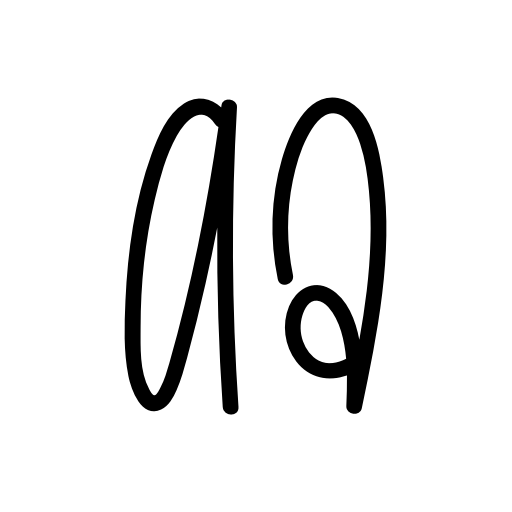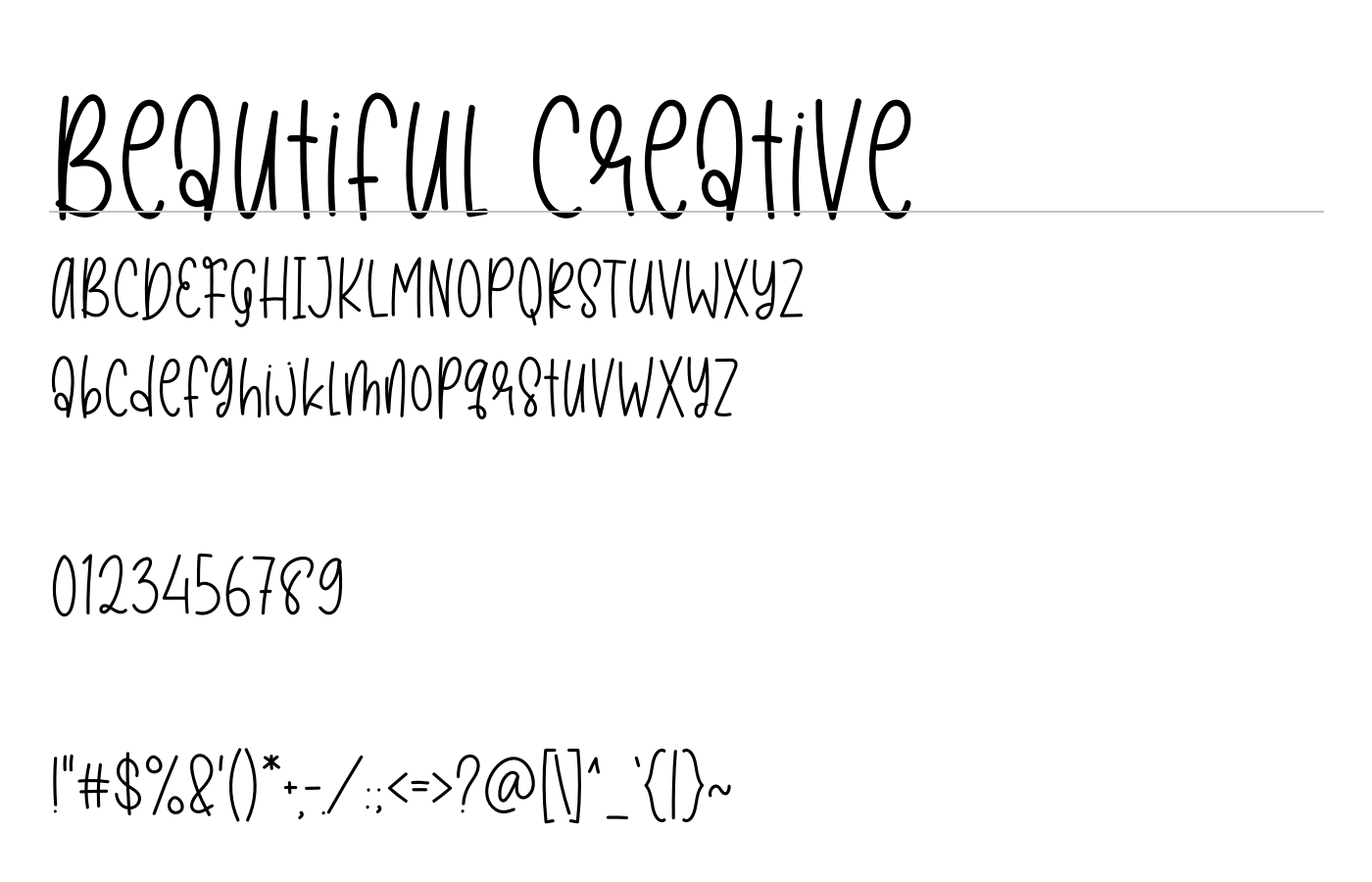
Beautiful Creative Font is a tall, narrow handwritten typeface with a playful and whimsical character. Its thin, delicate strokes and quirky letterforms give it a casual, friendly feel that works perfectly for creative projects, invitations, and informal branding that aim to appear approachable and unique. This font shines best in display uses like logos, headlines, or greeting cards where its charming personality can stand out clearly.
Beautiful Creative Font
About Beautiful Creative Font
| Font family | Beautiful Creative Font |
| Designer | letter art studio |